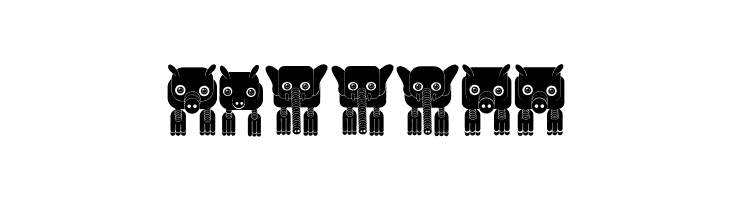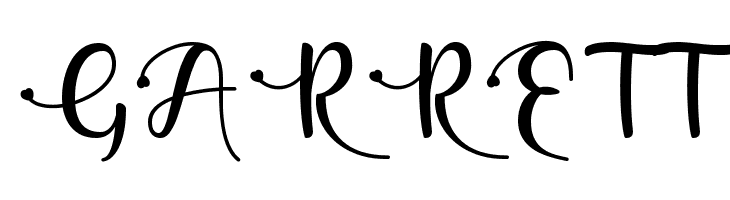
A flowing, cursive font with elegant, interconnected strokes.
An elegant script font with graceful, flowing lines and delicate curves.
An ornate and decorative font with Gothic influences, featuring elaborate letterforms.
A playful and whimsical script font with elegant curves and decorative swashes.
A playful script font with decorative swashes and a handwritten feel.
A bold, energetic script font with a hand-painted, dynamic style.
A bold, geometric font with blocky, angular characters for modern designs.
A bold, dynamic italic font with sharp angles and strong presence.
A playful, decorative font with letters as cartoon-like creatures.
A bold, decorative font with a three-dimensional, patterned design.